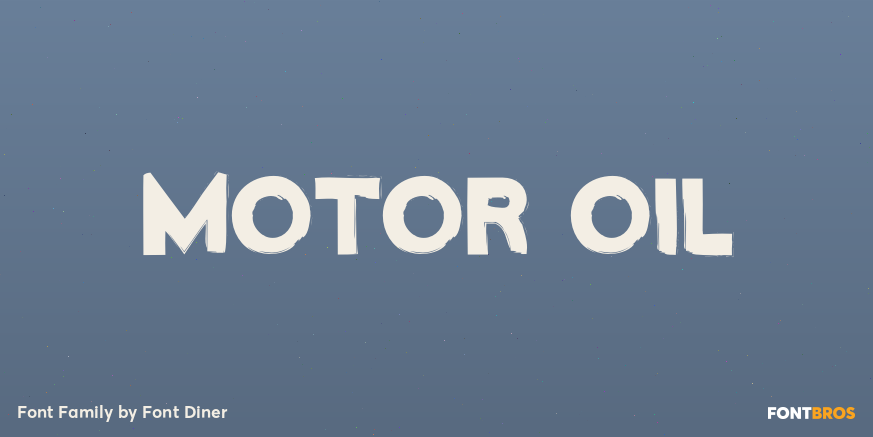
HomeFont BrosDistressedMotor Oil DistressedSpecial EffectSans Serif Motor Oil FacebookXPinterestWhatsApp 1 of 1 About Motor Oil It\’s thick, black and greasy and it takes one tough design to handle the power in this bad boy! Can you handle it?  DOWNLOAD ON FONT BROSThis font is sold and delivered by Font Bros. Font Canyon may earn a commission if you buy through this link. People also explored Botdoh Font Hafetareha Font Berkarya Font Whaley Fun Font Thonglor Font Vibe Font Sebastian Font Noach Font Dreamer Font 314 0 TagsMotor Oil Font Previous articleBannertypeNext articleSupermaganda BTN LEAVE A REPLY Cancel reply Comment: Please enter your comment! Name:* Please enter your name here Email:* You have entered an incorrect email address! Please enter your email address here Website: Save my name, email, and website in this browser for the next time I comment. Personal Use Free Einstaint Personal Use Free Read more about this font Sea Gardens Personal Use Free Read more about this font Hunters Personal Use Free Read more about this font Samureix Personal Use Free Read more about this font BLOG Modern Sans-Serif Fonts That Brands Love in 2025 In 2025, modern sans-serif fonts remain a top choice for brands looking to project clarity, professionalism, and... Free vs Paid Fonts: Why Investing in Premium Fonts Is Worth It The 10 Best Handwriting Fonts to Add Personality to Your Designs 5 Fonts That Will Dominate Design Trends in 2026